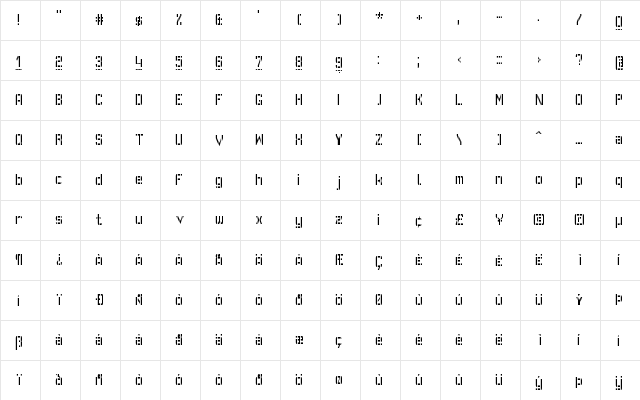
GVB Bus Pid Regular
| Designer | Jeffrey Visser |
Design Context for GVB Bus Pid Typeface
GVB Bus Pid takes a measured approach to typography — its balanced proportions and neutral character make it a reliable workhorse for both digital and print work.